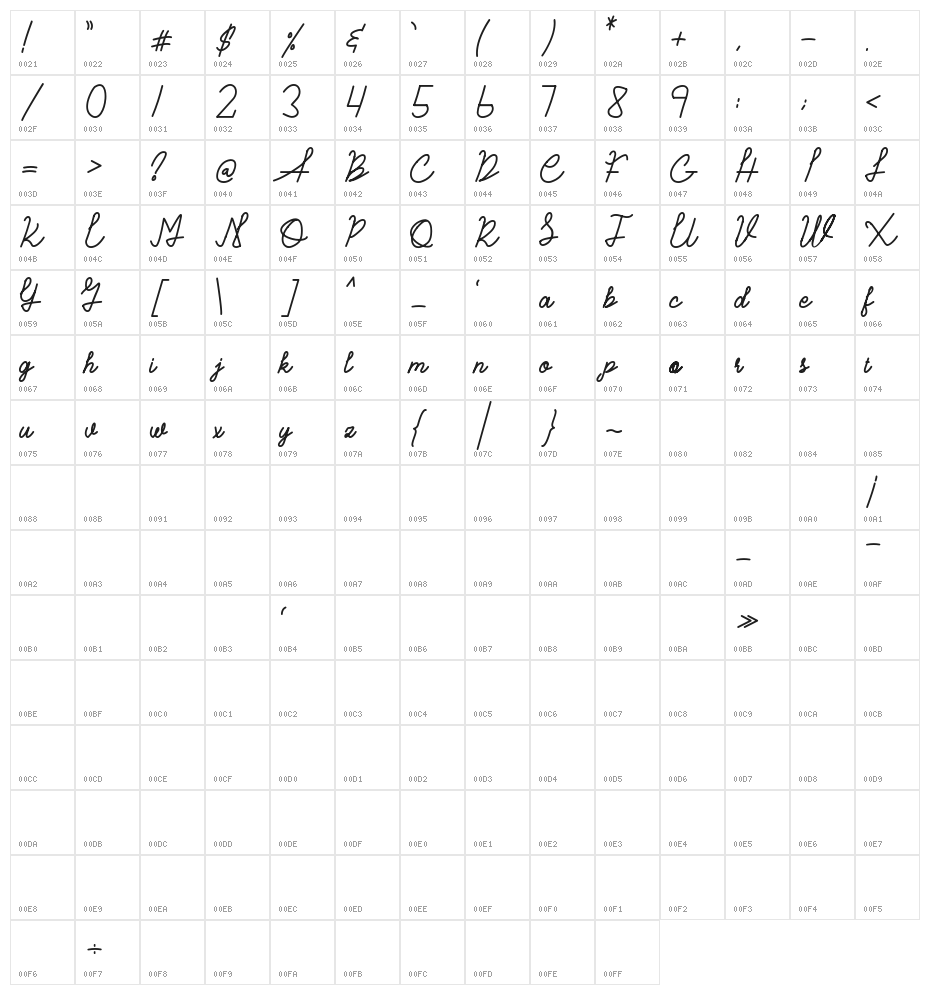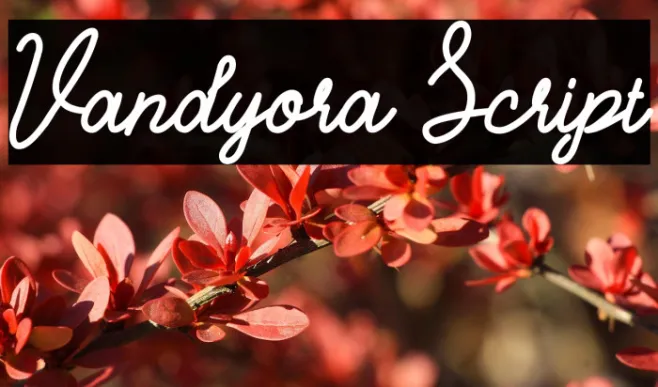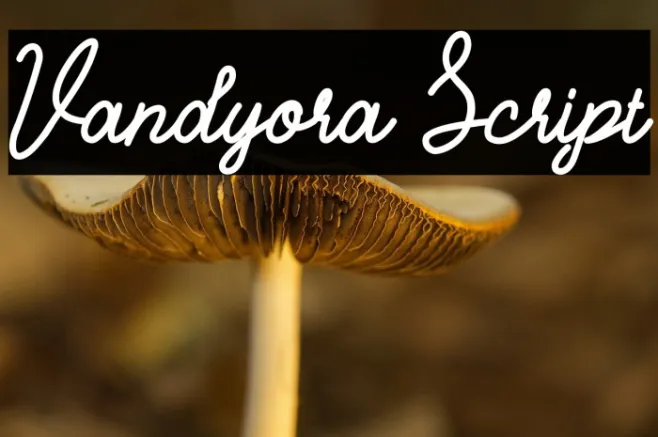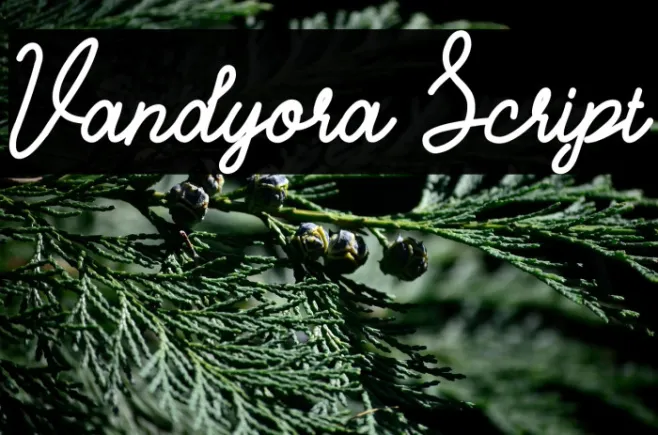
Vandyora Script Font
Vandyora Script Description
This script font exudes a sense of elegance and fluidity, characterized by its smooth, flowing strokes that mimic the natural motion of handwriting. The uppercase letters are slightly more structured, maintaining a consistent height, while the lowercase letters exhibit a charming cursive style with gentle loops and curves. The numerals are clear and legible, maintaining the script's overall aesthetic. Special characters are seamlessly integrated, enhancing the font's versatility. This font is perfect for projects that require a personal touch, such as invitations, greeting cards, or branding materials.
| Use Case | Invitations, Branding, Greeting Cards |
| Proposed Projects | Ideal for wedding invitations, personal branding, greeting cards, and elegant packaging designs. |